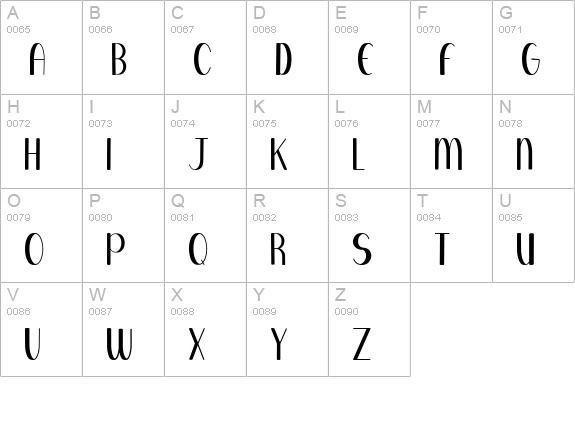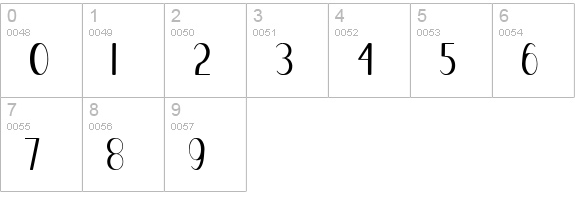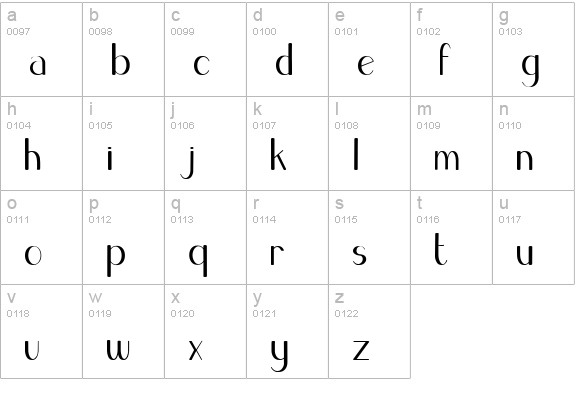
Blue Melody Font Details
Blue Melody font is a stunning and elegant typeface that exudes sophistication and style. With its delicate curves and graceful lines, this font is perfect for adding a touch of class to any design project. Whether you're creating wedding invitations, branding materials, or social media graphics, Blue Melody font will elevate your work to the next level. The best part about Blue Melody font is that it is available for free download at FontsMarket.com. You can easily access this beautiful font and use it in your projects without any cost. Don't miss out on the opportunity to enhance your designs with the timeless beauty of Blue Melody font. Download it now and start creating stunning visuals that will leave a lasting impression.